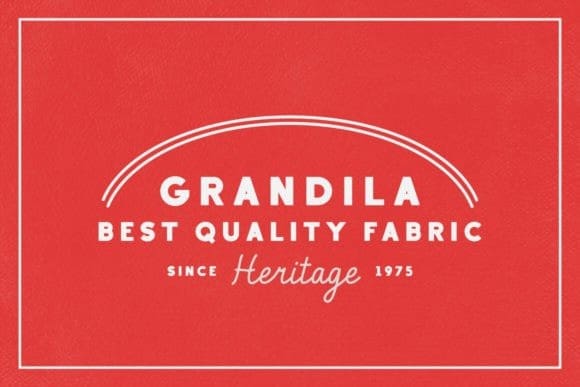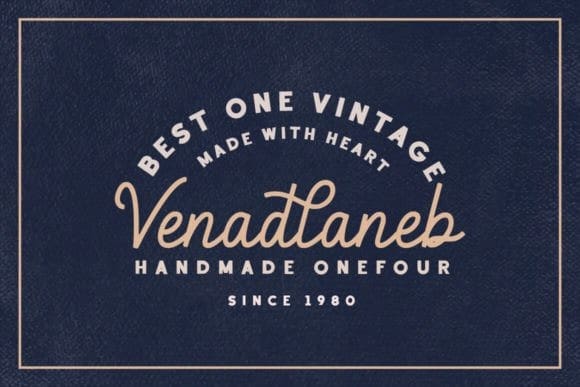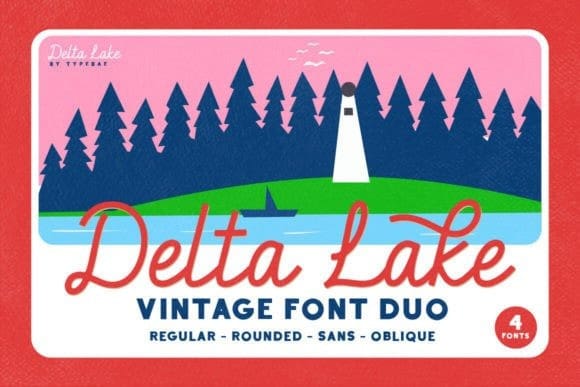
Delta Lake Font Duo
Delta Lake Font Duo, is a beautiful handwritten brush script font that features elegant tails at the beginning and end of each letter. It offers ligatures, enabling certain letter combinations to flow seamlessly for a more natural and authentic appearance.